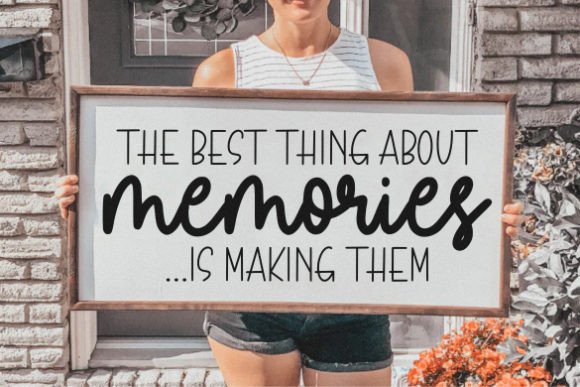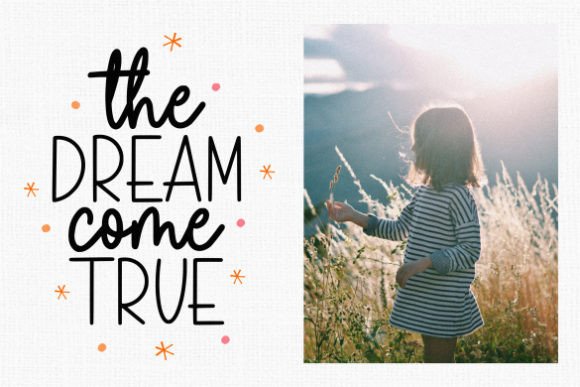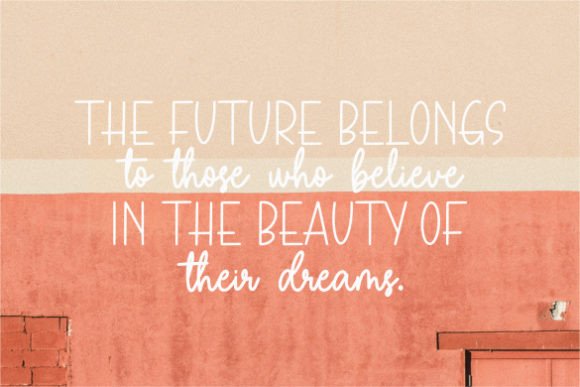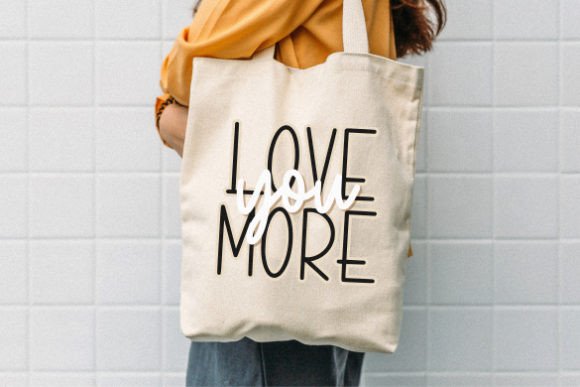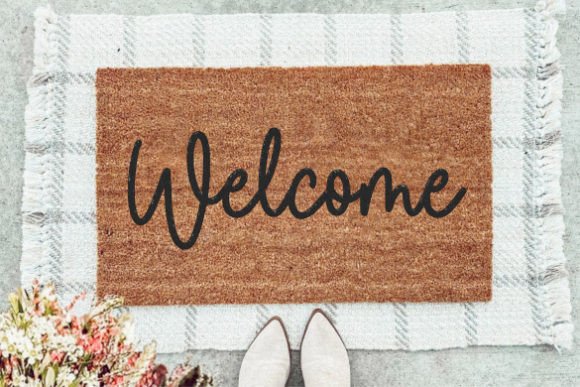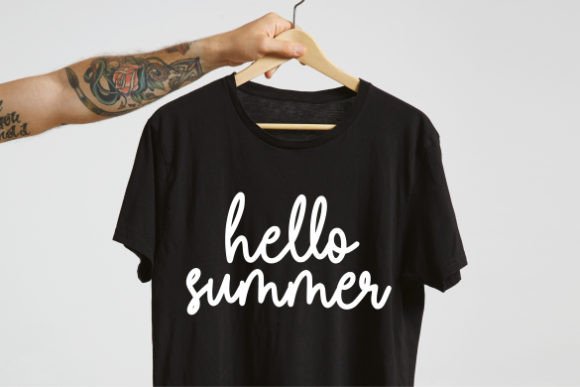
Introduction to Popcorn Garden Duo Font Font
Fonts play a crucial role in design, and the Popcorn Garden Duo Font font is a typeface that brings both character and versatility to any project. Whether you’re working on a branding project, a website, or a print design, the Popcorn Garden Duo Font font offers a unique style that can elevate your work.
Popcorn Garden is a fun and cute handwritten font duo (script and sans).
Whatever the topic, this font will be a wonderful asset to your font library, as it has the potential to enhance any creation .
Key Features of Popcorn Garden Duo Font Font
Why Choose Popcorn Garden Duo Font Font?
The Popcorn Garden Duo Font font is more than just a typeface – it’s a design tool that helps you communicate your message with style and clarity. Its unique character set and versatile design make it suitable for a wide range of applications, from elegant invitations to bold headlines.
With its carefully crafted letterforms and balanced proportions, the Popcorn Garden Duo Font font ensures readability and visual appeal across all mediums.
What makes Popcorn Garden Duo Font font special?
The Popcorn Garden Duo Font font stands out with its unique design, exceptional readability, and versatility across various design applications.